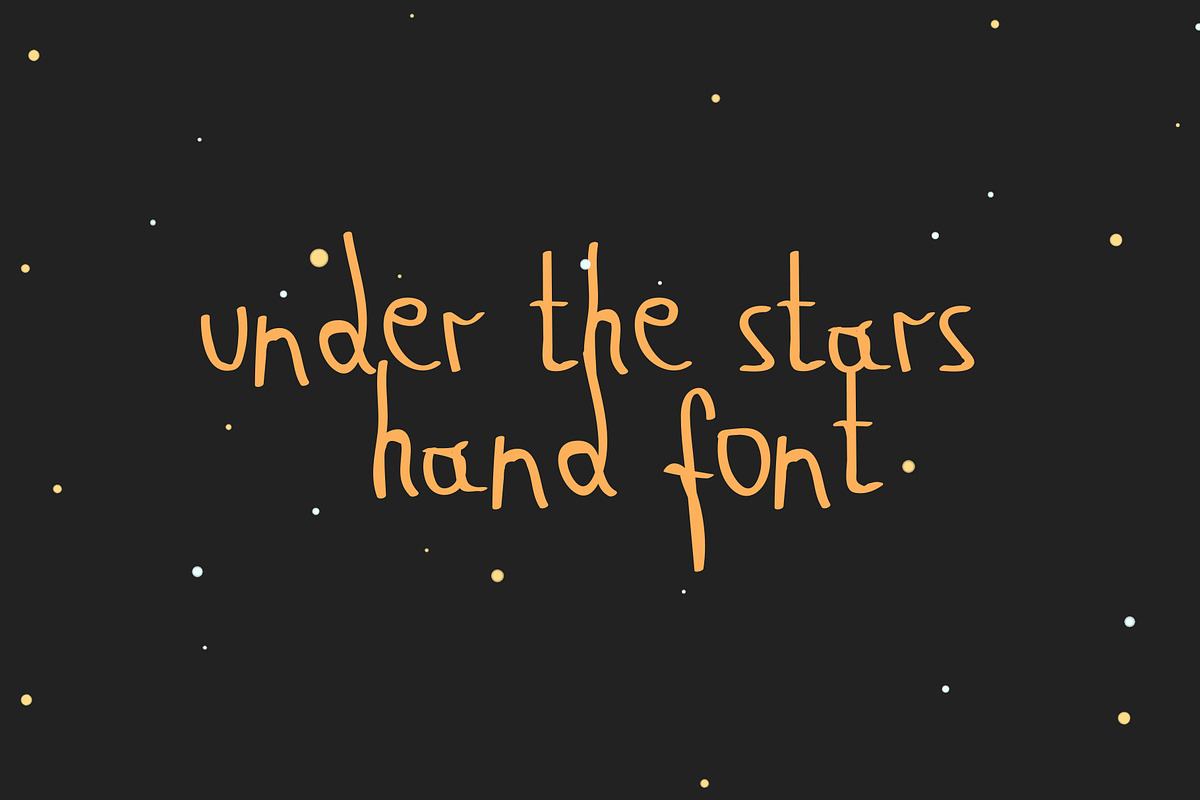
Please note that you must purchase this font for commercial use. You can download Uts Uts Hand Font for free, strictly for personal testing purposes only. Uts Uts Hand is a playful, handwritten font that brings a fun, relaxed, and organic feel to any design. With its uneven strokes and charming character, Uts Uts Hand Font Free Download is perfect for casual branding, social media graphics, children's books, greeting cards, and personal invitations.
This font is full of personality, making it ideal for designs that want to feel approachable, friendly, and lighthearted. It includes uppercase and lowercase letters, numerals, punctuation, and multilingual support, giving you flexibility for various design projects.
Whether you're designing for a whimsical brand, crafting joyful content, or creating personalized designs, Uts Uts Hand adds charm and authenticity to your typography.